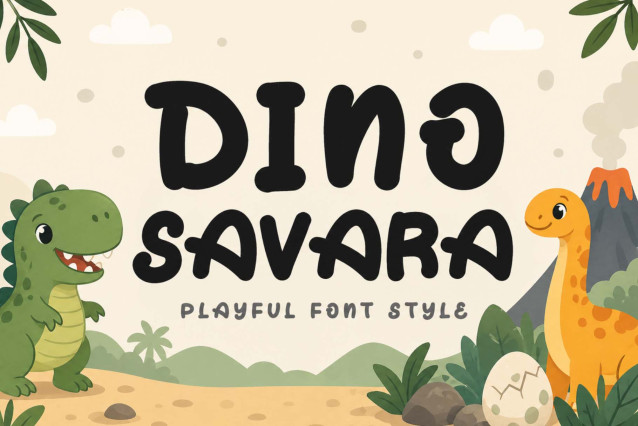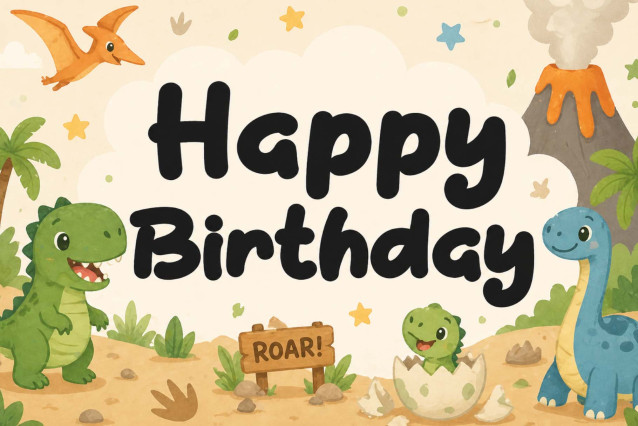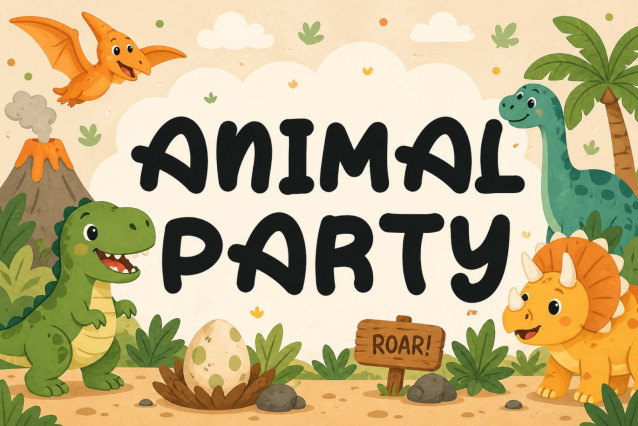
Dino Savara Font
“Dino Savara” is a cute and unique display font. It features uppercase and lowercase letters, numbers, punctuation, and multilingual support. It’s perfect for birthdays, animations, cartoons, comics, summer, banners, holidays, vacations, back-to-school, Christmas, logos, banners, branding, stickers, posters, prints, greetings, and more.